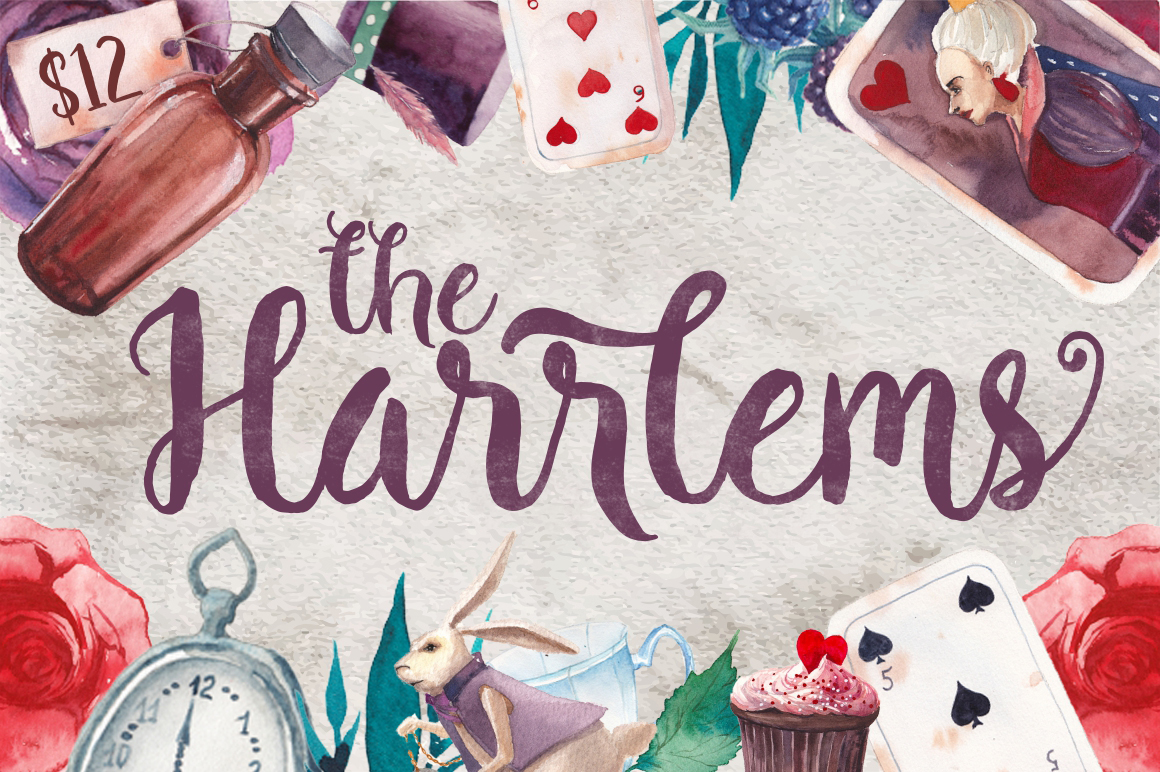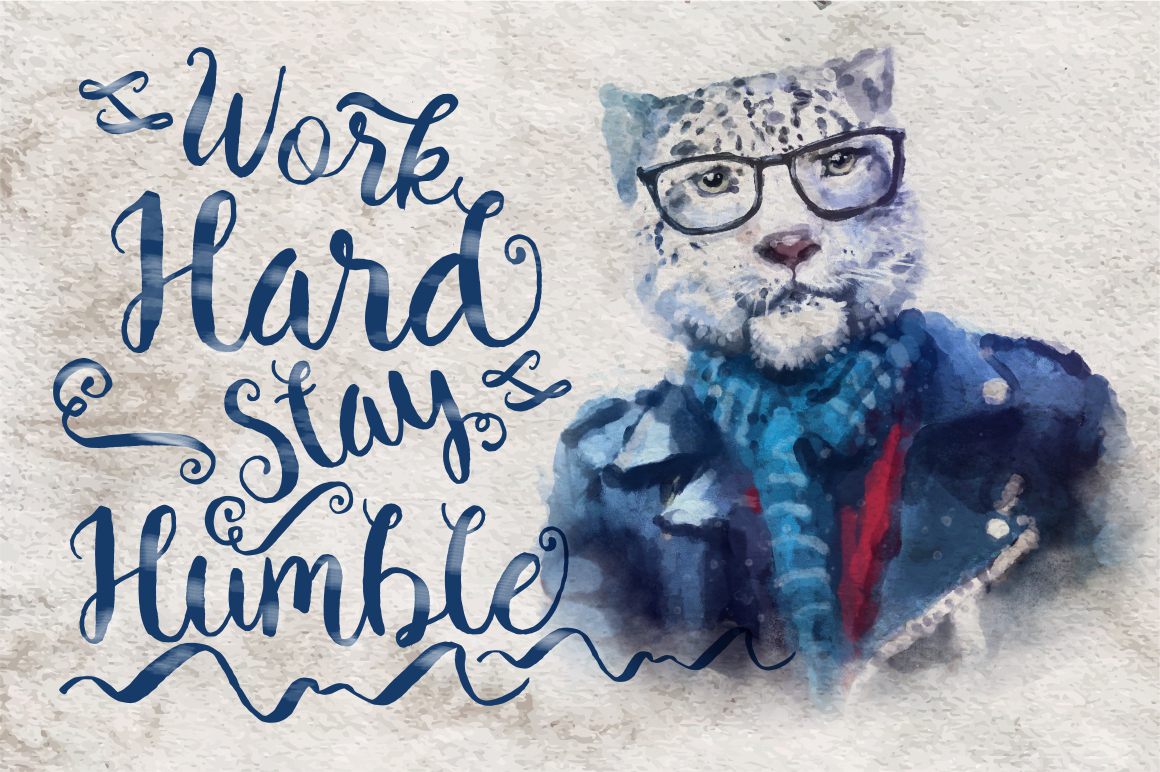
The Harrlems Font was made using a brush pen,Harlems also has a’messy’skin to get naturally handmade looks. This font is suited for your design projects and to exposing more Romance fells 🙂
The Harrlems font also supported with the extra character that includes:
Standard Ligatures
Stylistic Set 01 – Stylistic Set 02